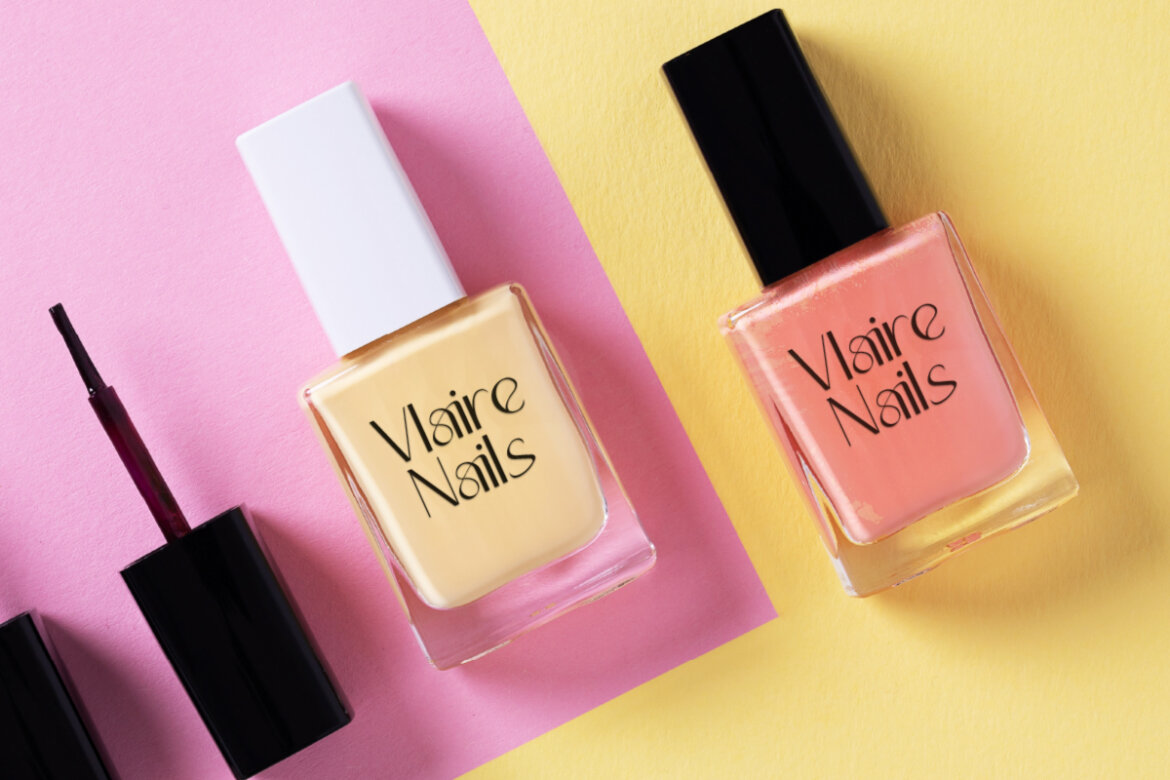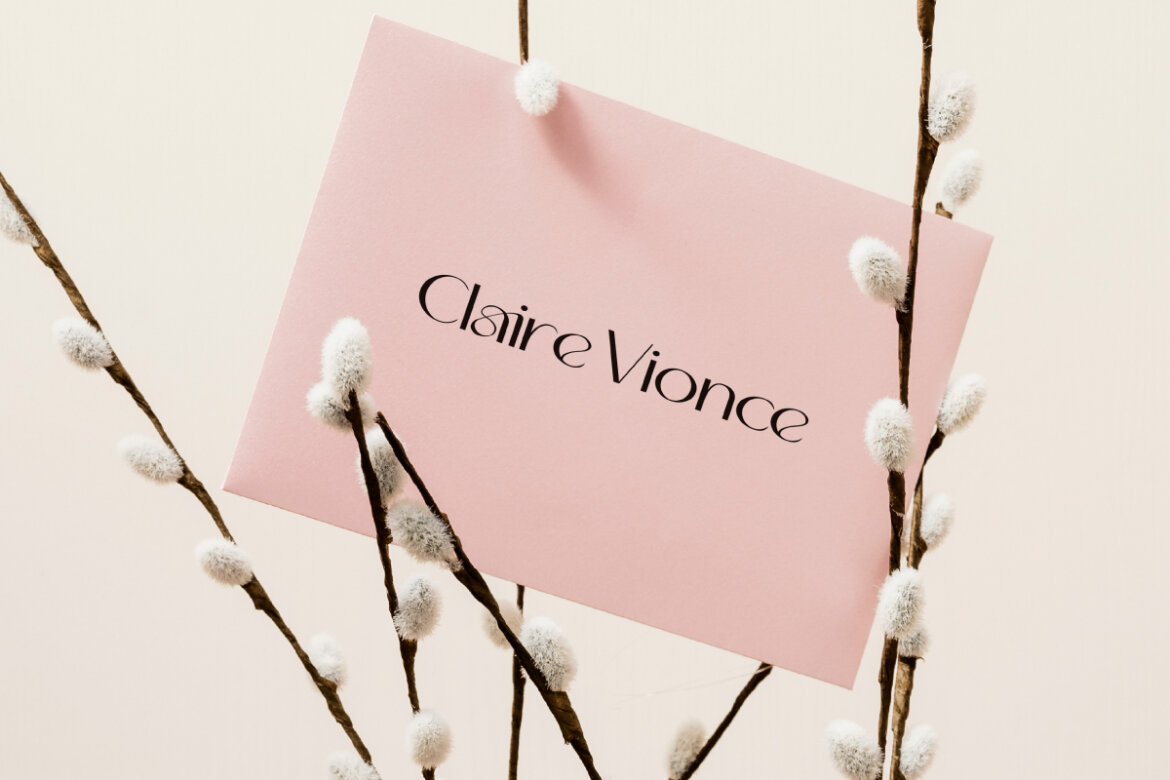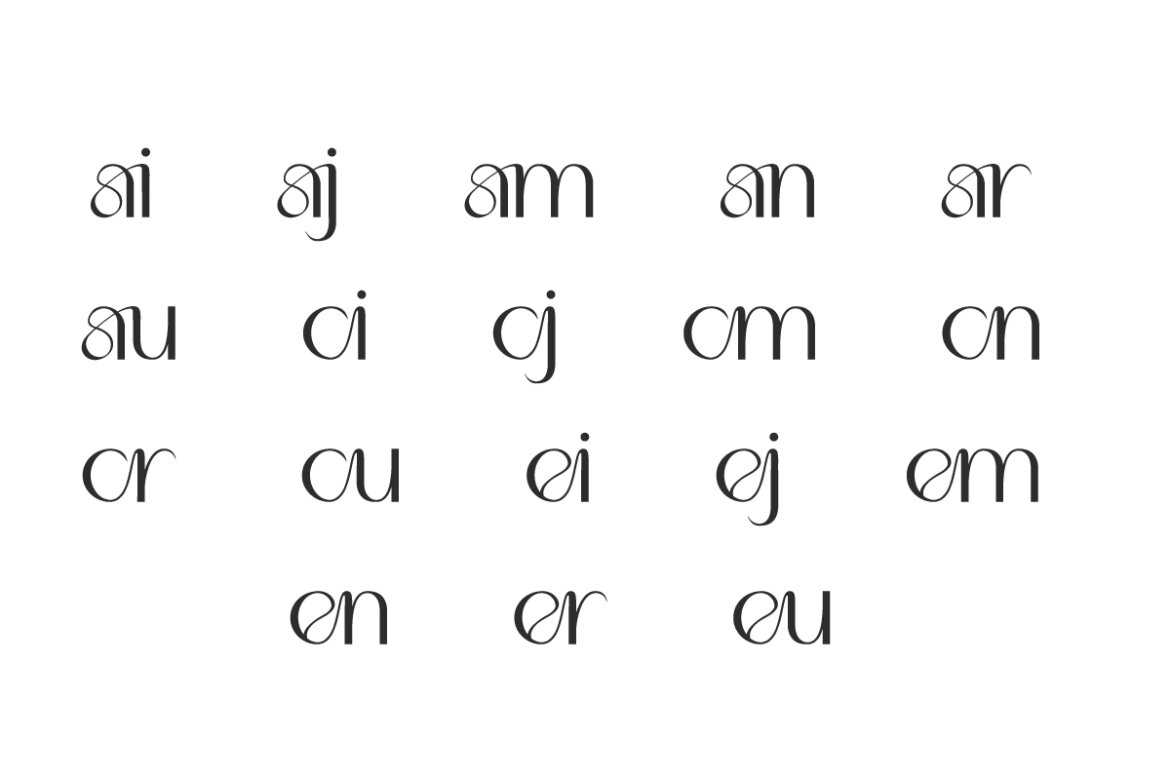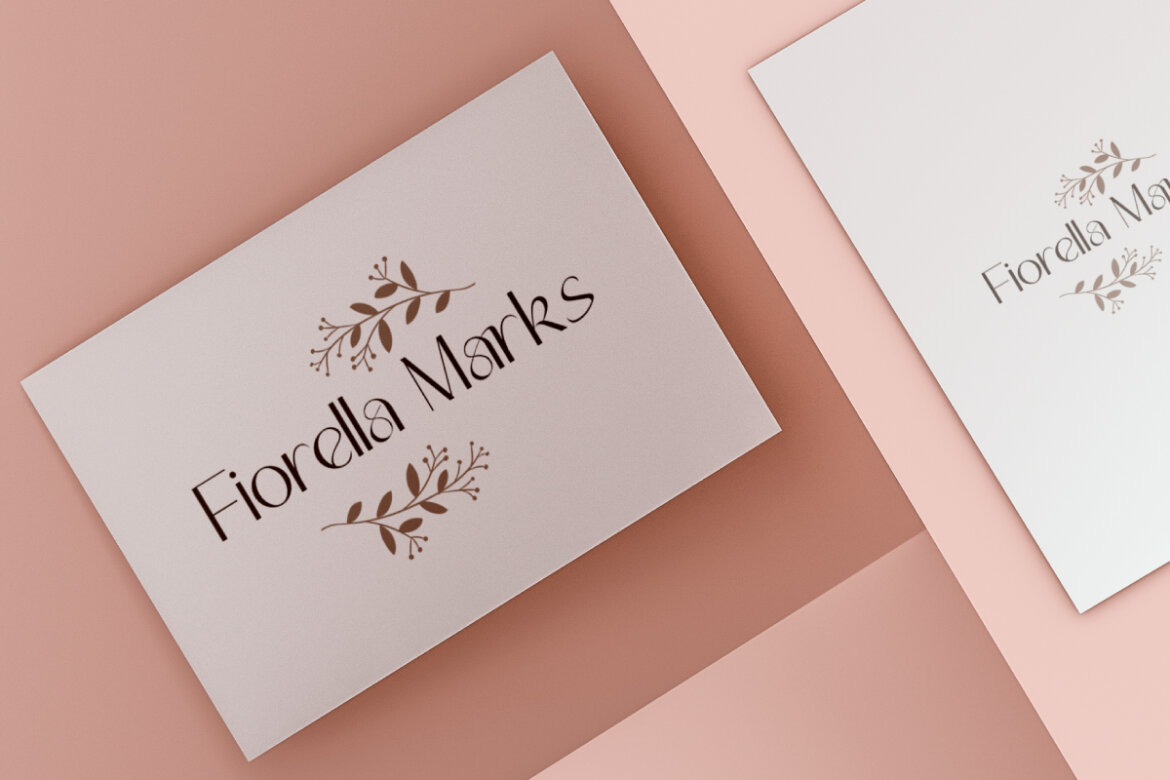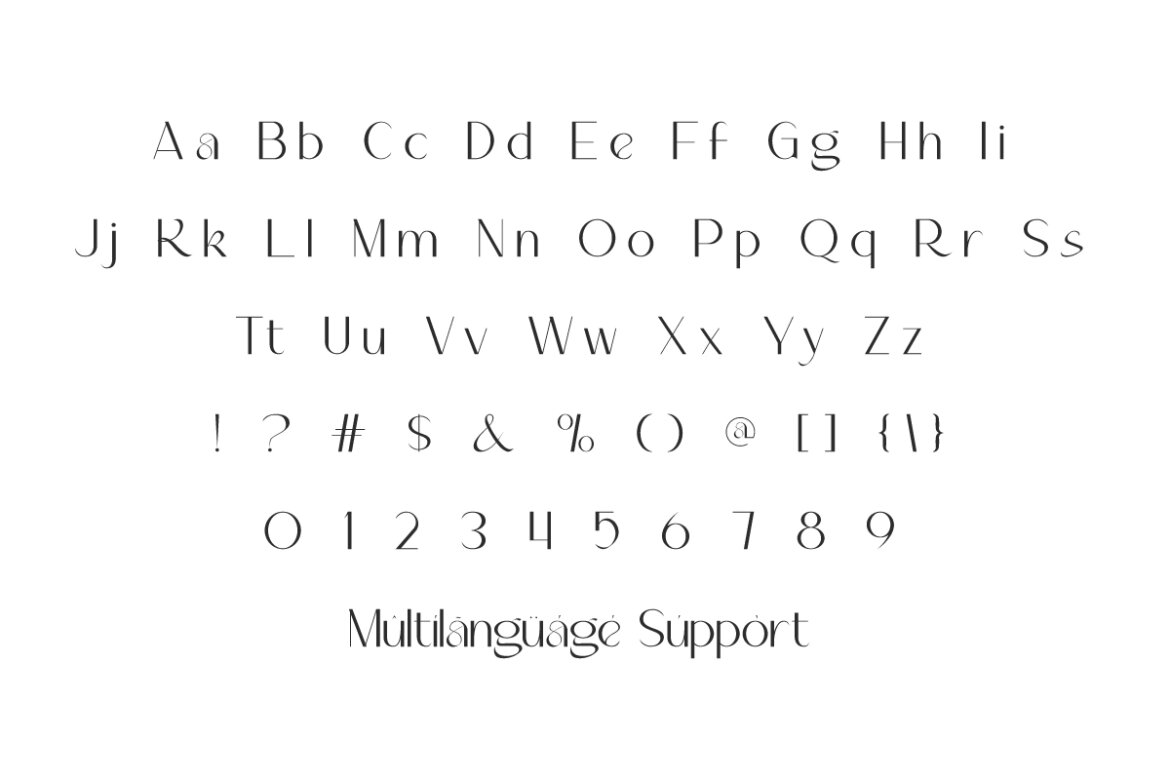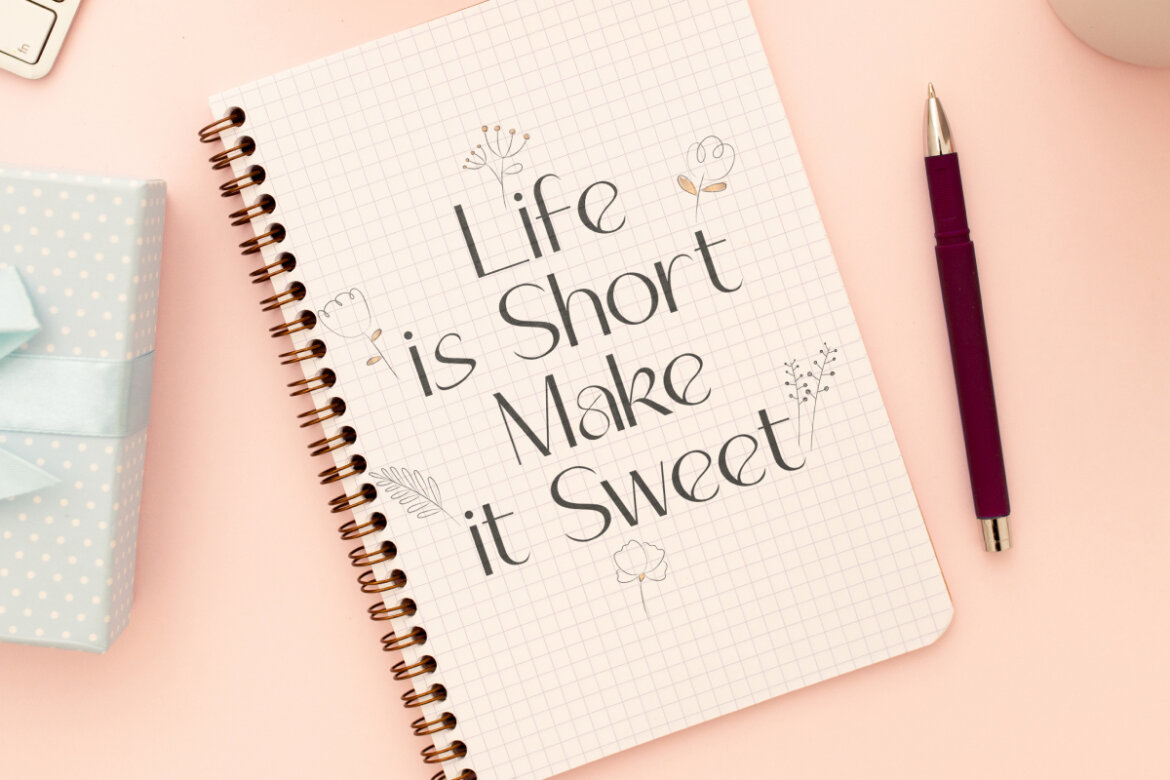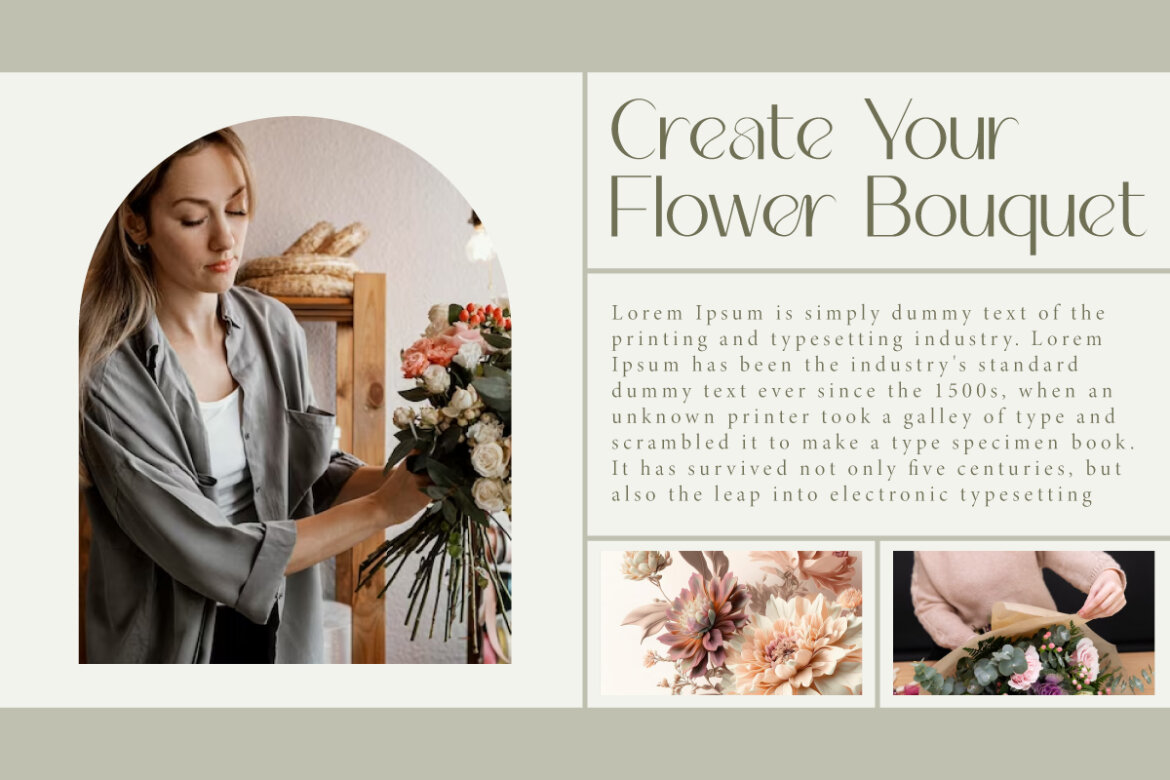
Claire Vionce FREE Font
Claire Vionce
Claire Vionce Font is a chic sophisticated display font designed specifically for elegant branding purposes. The letters come with a clean, contemporary, light and elegant impression providing a professional appearance. It’s gorgeous for cards, headers, invitations, logo design, product packaging, stickers, title, watermarks, websites, and much more.
Claire Vionce Font includes a full set of Basic Uppercase and Lowercase Characters, Numbers, Punctuation and Symbols. It has also been equipped with Ligature characters to add visual appeal to the font so it will be ideal for apparel, beauty clinic, boutique, cosmetic, fashion, florist, furniture, graphic design, handicrafts, marriages, spa salon, writer, and more.